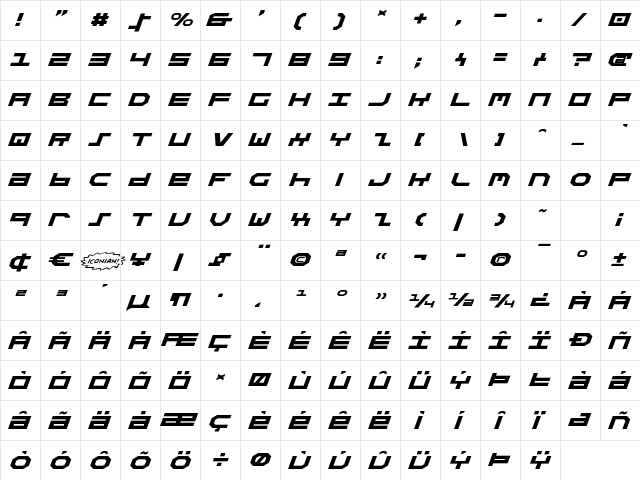
Stuntman Expanded Italic Expanded Italic
Design Context for Stuntman Expanded Italic Typeface
Stuntman Expanded Italic offers clean, dependable letterforms without strong stylistic allegiance, making it a practical choice for designers who need flexibility. The slanted form adds forward momentum and visual energy.